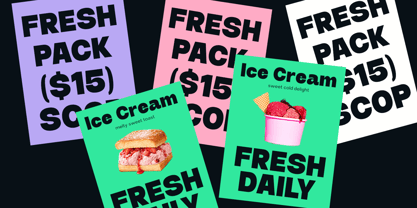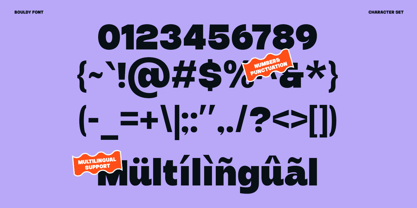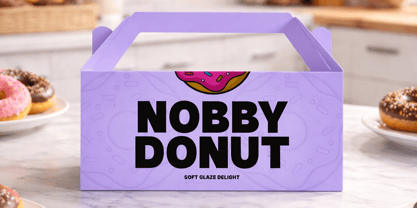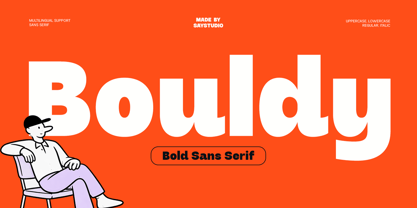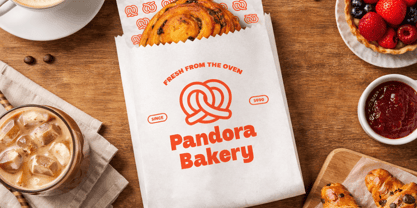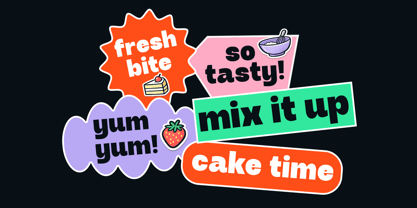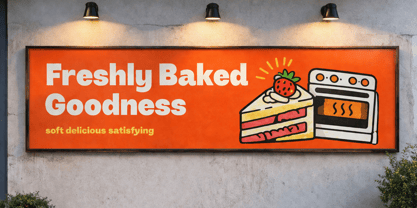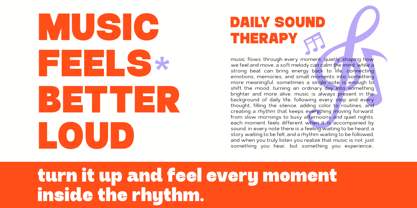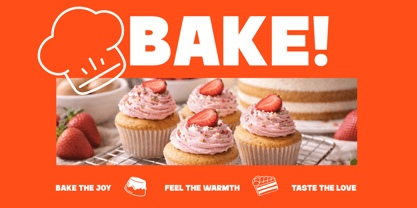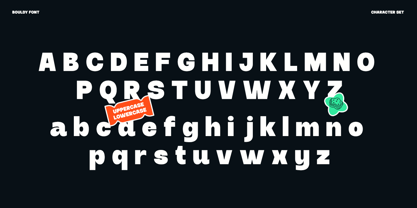
Bouldy
La familia tipográfica Bouldy fue diseñada por Mussyayin y publicada por Say Studio. Bouldy contiene 2 estilos y opciones de paquete familiar. Más información sobre esta familia
Bouldy is a bold sans serif font designed to deliver a strong, friendly, and modern visual presence. With its thick letterforms and smooth curves, Bouldy creates a confident yet approachable style that stands out in any design. The rounded shapes give it a playful personality while maintaining excellent readability.
Inspired by modern branding and casual design trends, Bouldy is perfect for projects that need a bold and engaging look. Whether you're creating logos, social media content, posters, packaging, or headlines, this font adds a lively and impactful touch. Its balance between strength and friendliness makes it highly versatile across different creative fields.
Bouldy is built for designers who want to create bold, expressive, and memorable visuals. From branding to digital campaigns, this font helps communicate energy, creativity, and modern identity with ease.
• Bouldy Regular
• Bouldy Italic
• Standard Uppercase & Lowercase
• Symbol & Number
• Multilingual Support